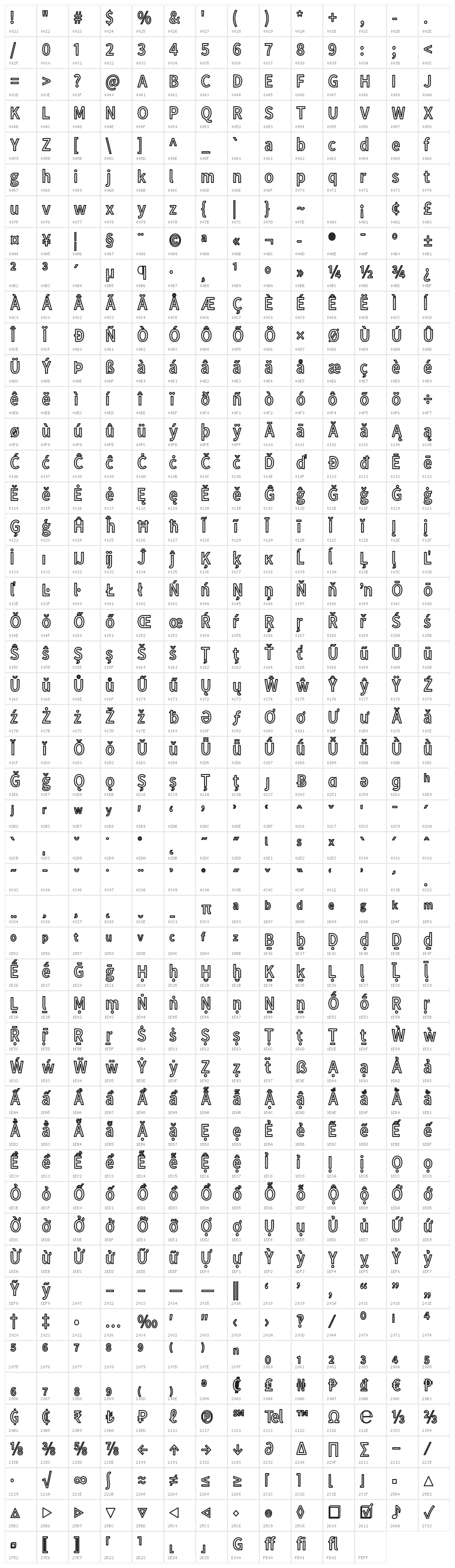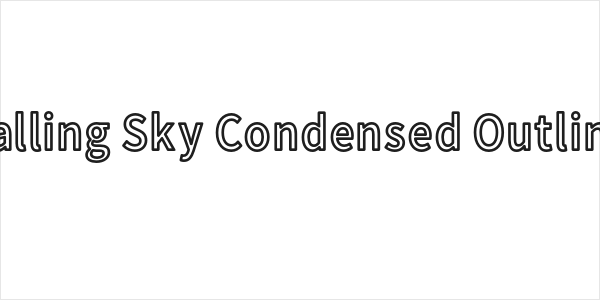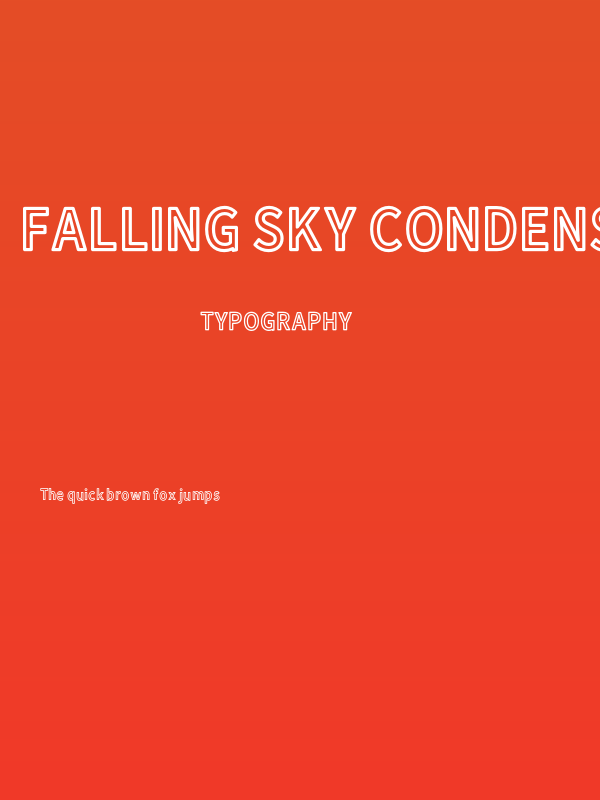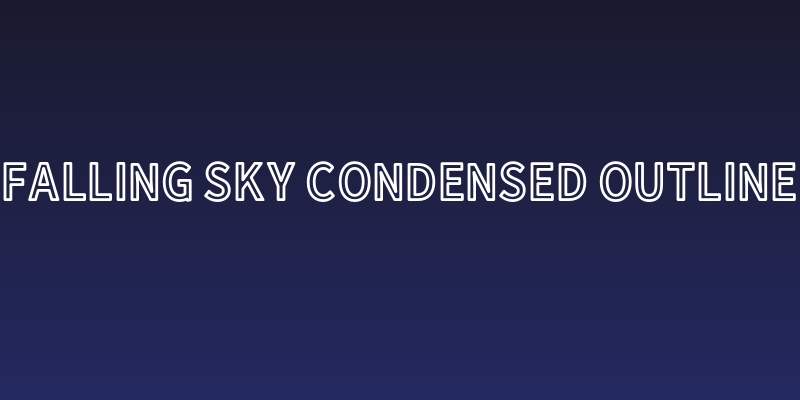
Falling Sky Condensed Outline Font
Falling Sky Condensed Outline Description
This font features a modern and clean outline style, characterized by its condensed letterforms and minimalistic design. The uppercase and lowercase letters maintain a consistent width, providing a uniform appearance. The numerals and special characters are crafted with the same attention to detail, ensuring readability and visual appeal. The outline effect gives the font a unique, airy feel, making it suitable for various design applications. Its geometric shapes and clear lines contribute to a contemporary aesthetic, while the condensed nature allows for efficient use of space.
| Proposed Projects | Ideal for headlines, posters, branding, and any project requiring a modern and distinctive look. |